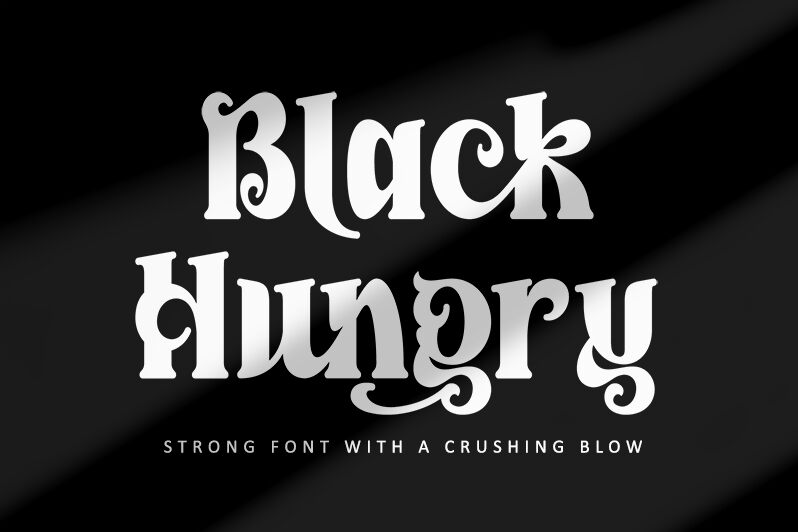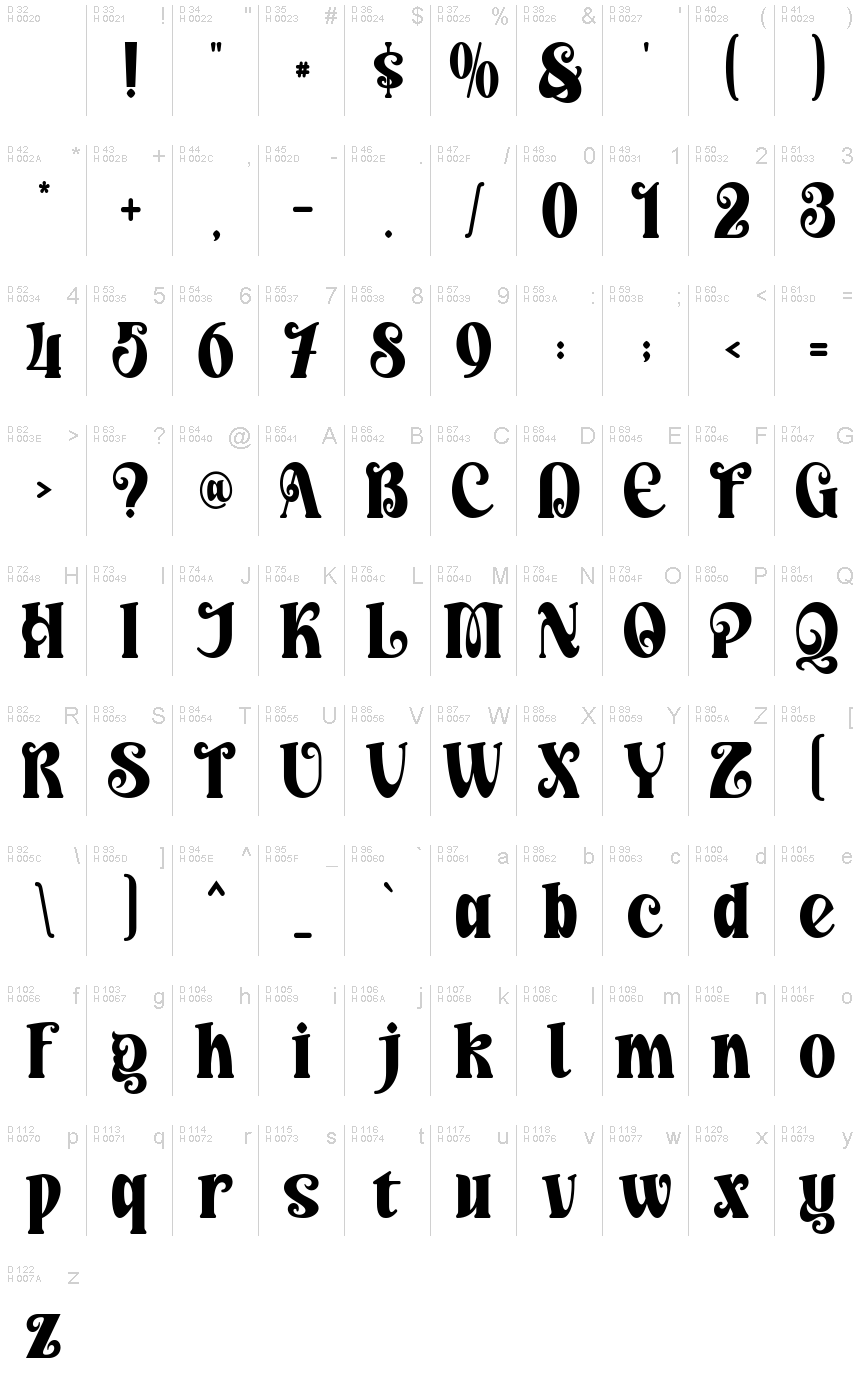
Black Hungry, designed by Letterara, exudes a bold retro charm that captures the essence of vintage design with a modern twist. Its condensed form and confident strokes command attention, making it a standout choice for impactful headlines and branding that needs to make a statement. The playful curls and unique flair of each character invite a sense of nostalgia, while still maintaining the sleek professionalism required for contemporary aesthetics.
Perfectly suited for projects that require a touch of personality without sacrificing sophistication, Black Hungry shines in poster designs, nostalgic packaging, and eye-catching logos. Its distinctive style ensures it becomes the focal point of any creative work seeking to blend the allure of yesteryear with today's design sensibilities.